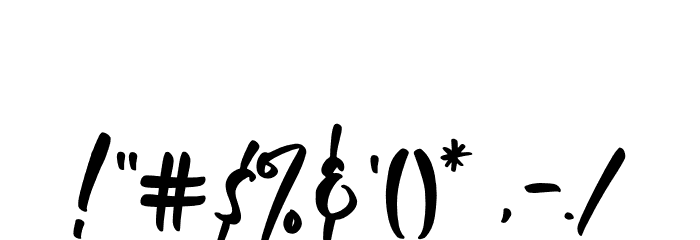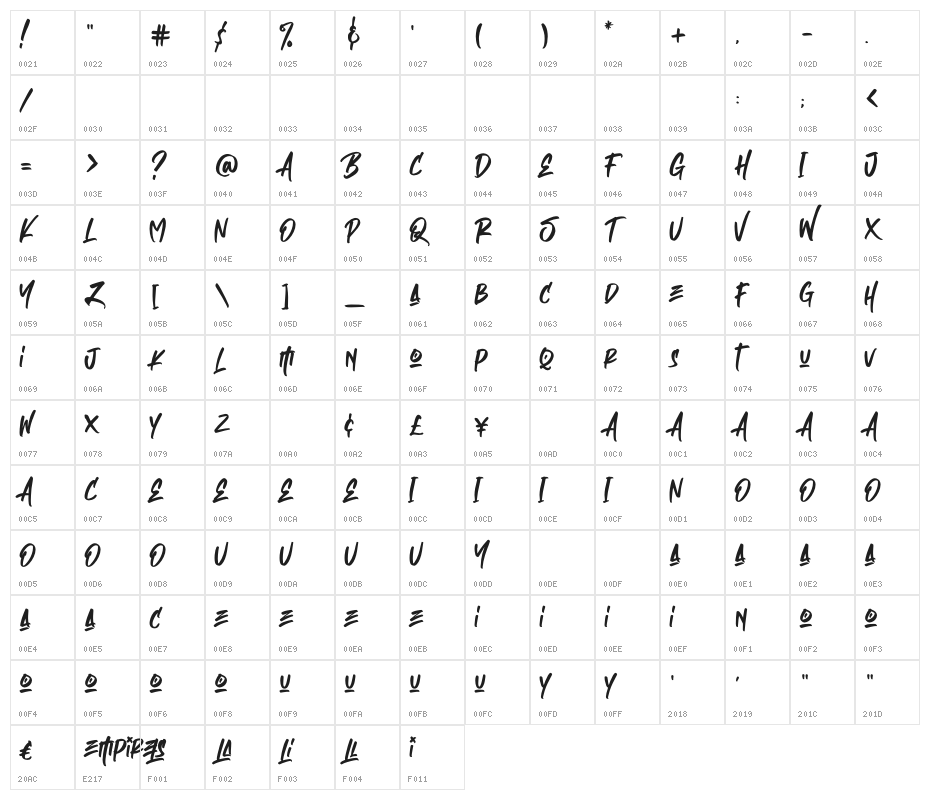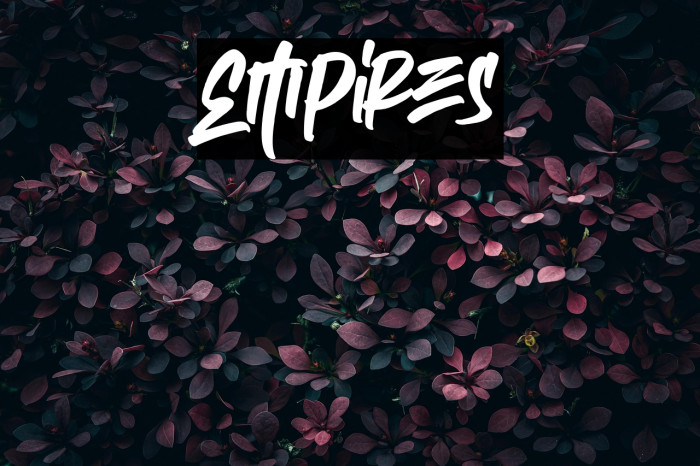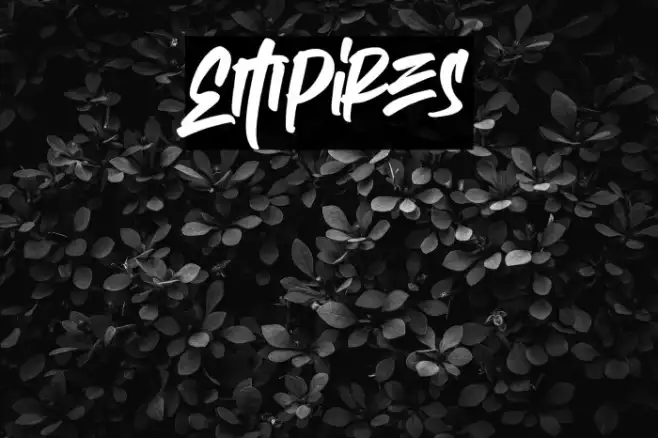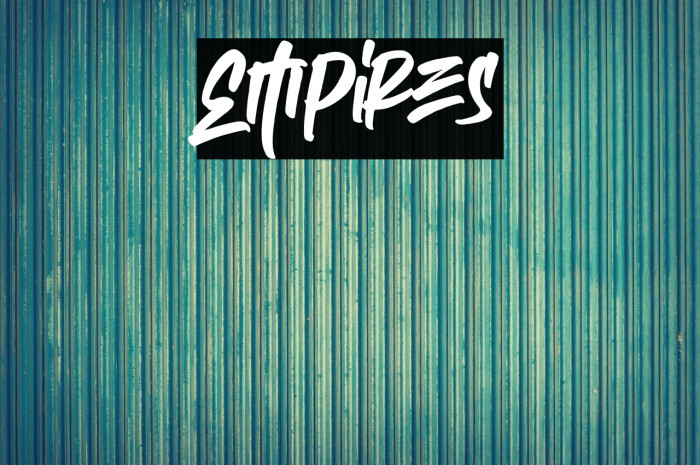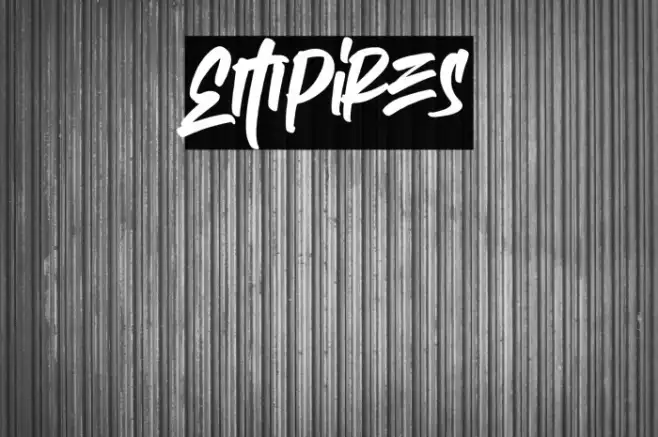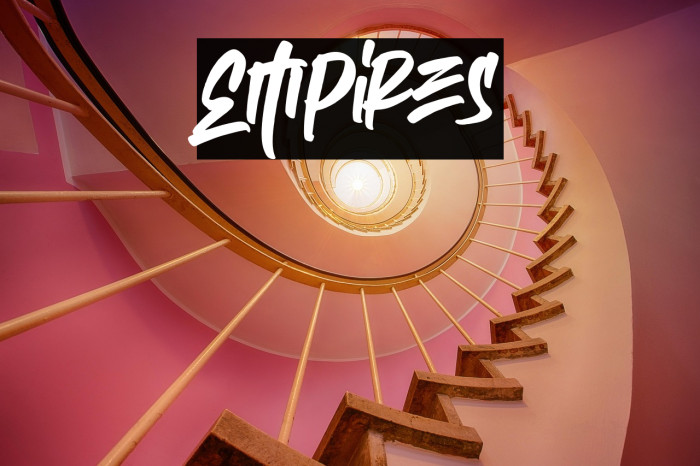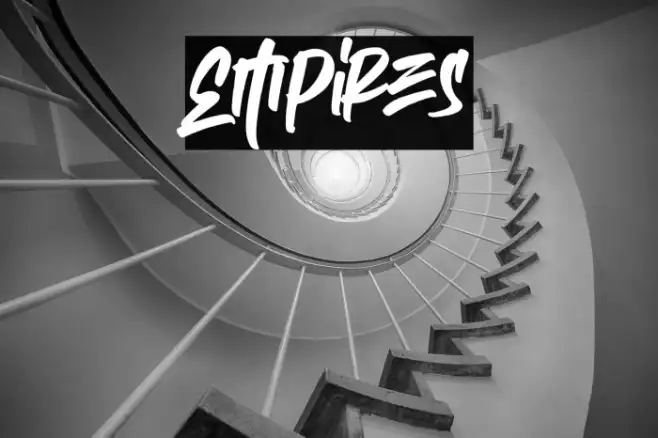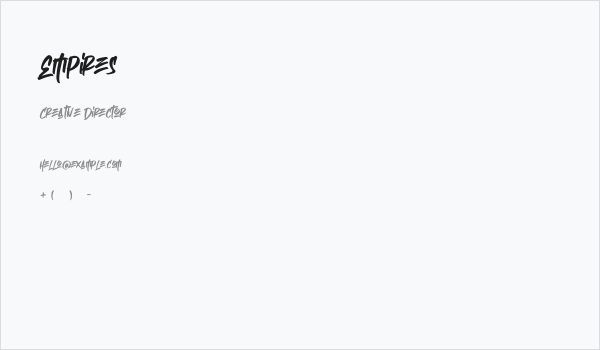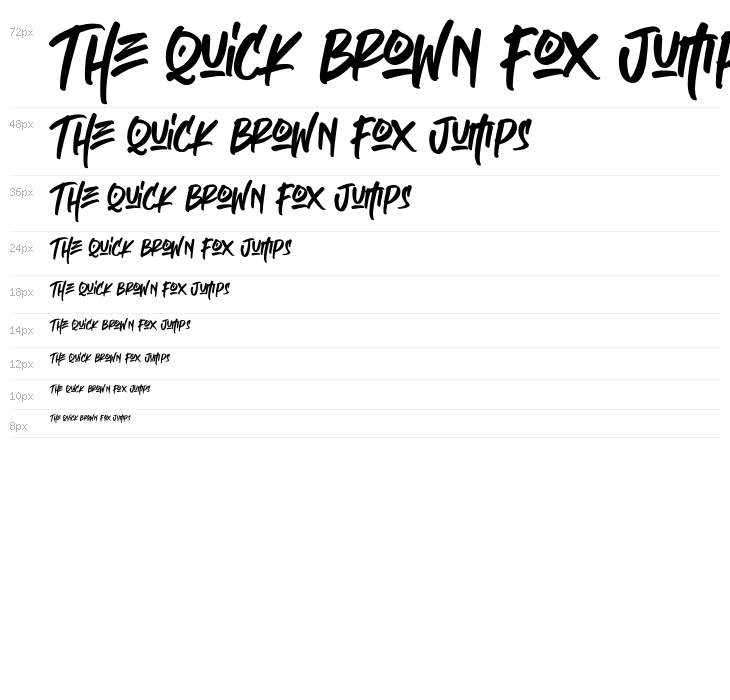
Empires Font
Empires Description
This font showcases a bold, energetic style with a handwritten appearance. The letters are characterized by their dynamic, flowing strokes, giving a sense of movement and spontaneity. The uppercase and lowercase letters maintain a consistent style, with slightly exaggerated curves and angles that add to its playful and informal nature. The numbers and special characters follow the same lively design, making the font versatile for various creative applications. Its boldness and unique flair make it stand out, perfect for projects that require a personal touch.